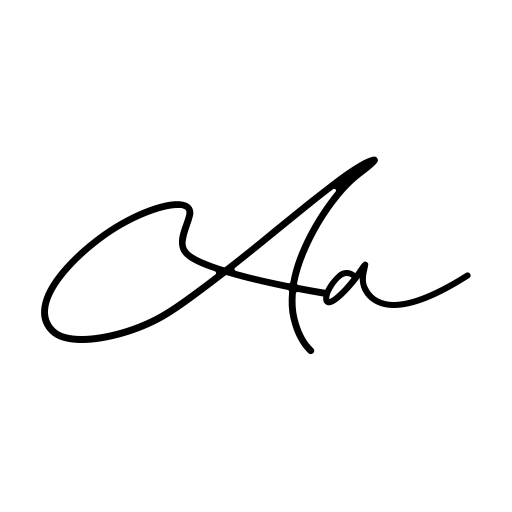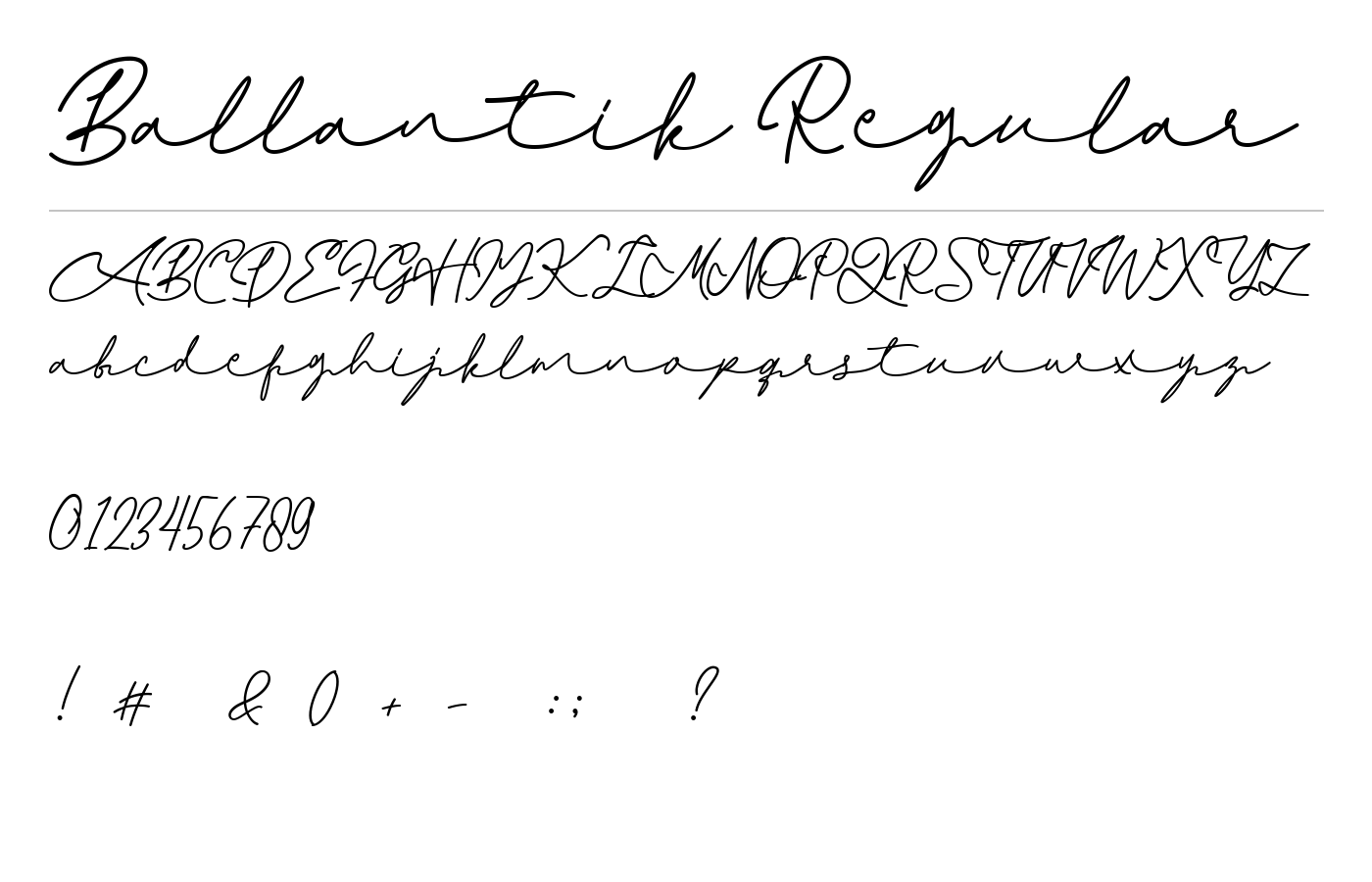
Ballantik is an elegant, handwritten script font characterized by its smooth, flowing strokes and delicate, airy letterforms. Its light weight and graceful curves give it a refined, personal touch, making it ideal for creative, sophisticated branding, invitations, and stylish headlines. This font works beautifully where a touch of class and warmth is desired, lending a friendly yet polished personality to any design.
Ballantik Font
About Ballantik Font